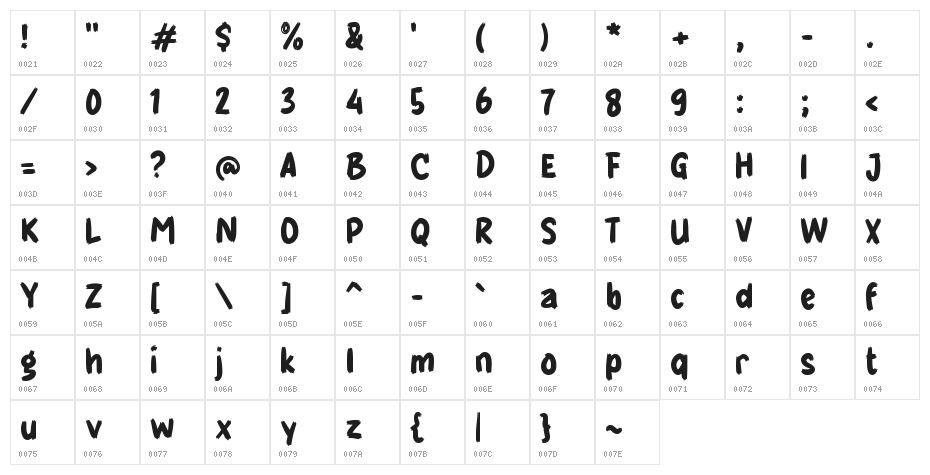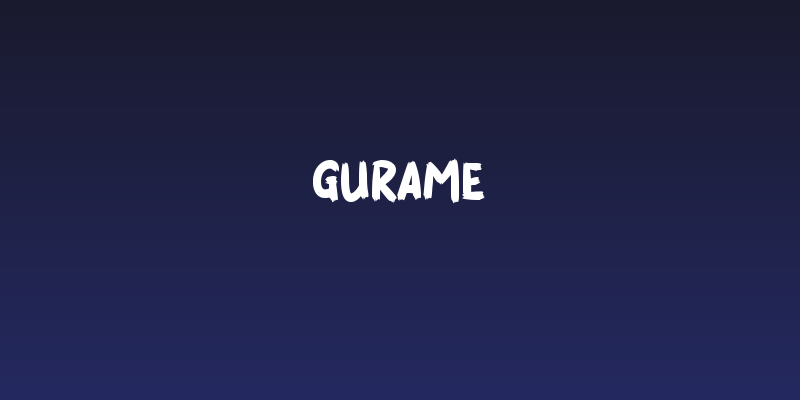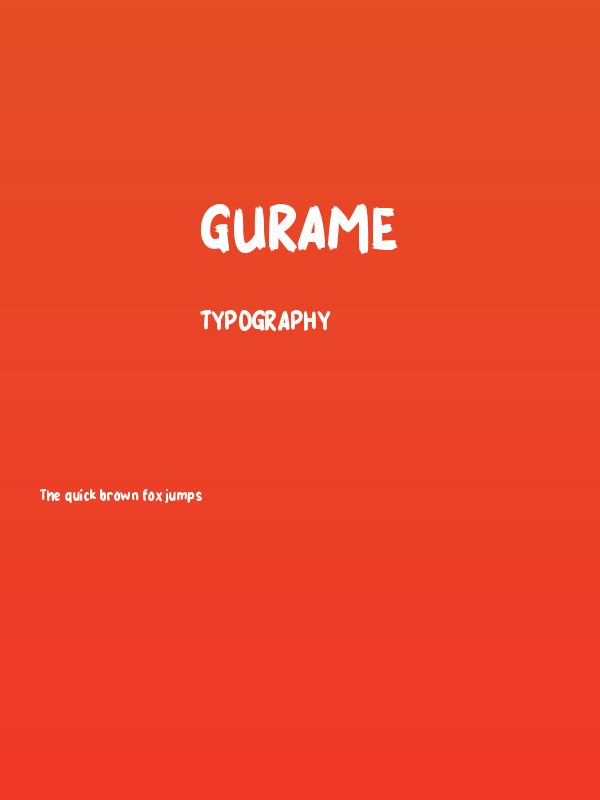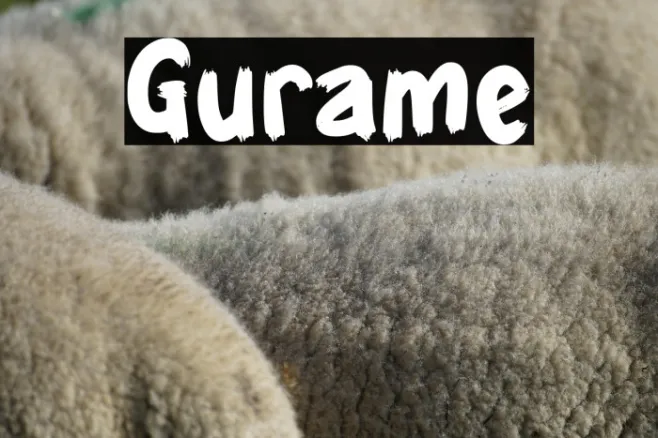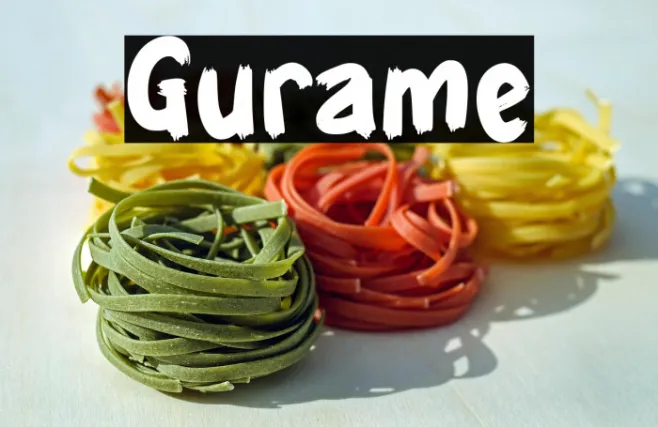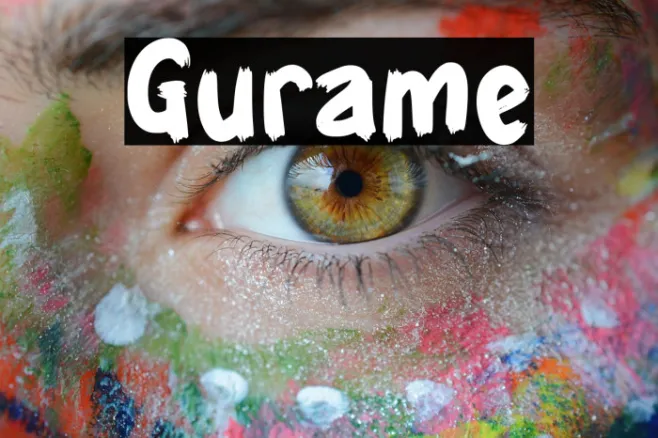
Gurame Font
Gurame Description
This font features a bold and expressive style with brush-like strokes that give it a dynamic and energetic appearance. The characters are slightly irregular, adding a handcrafted feel that enhances its artistic flair. The uppercase and lowercase letters maintain a consistent weight, while the numbers and special characters are designed to match the overall aesthetic. The font's thick strokes and playful design make it stand out, suitable for projects that require a strong visual impact.